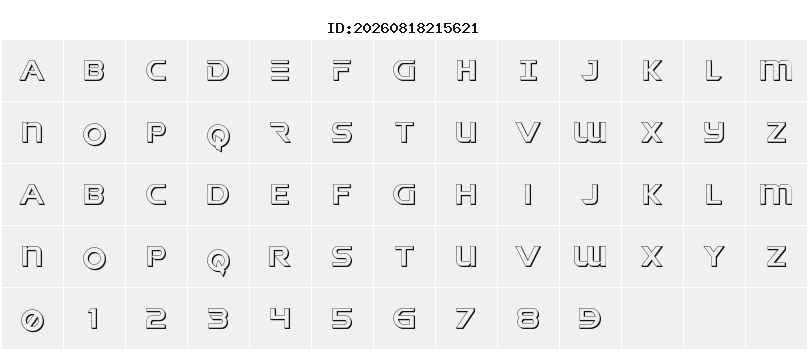
• Font Name: Singapore Sling 3D
About Singapore Sling 3D.ttf
Singapore Sling 3D.ttf is a modern, elegant sans-serif font designed for ultimate readability and visual harmony. Perfect for branding, headlines, web design, and print materials.